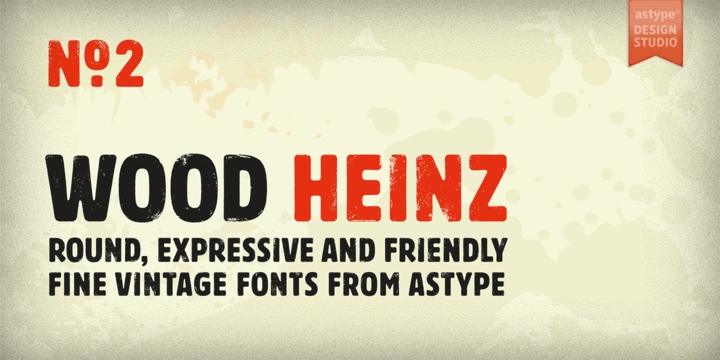
Wood Heinz No.2 Font
This distinctive wood-type inspired typeface is perfect for vintage signage, rustic branding projects, western-themed designs, craft brewery logos, antique poster recreation, artisanal packaging, heritage brand identity, and authentic Americana design applications.
What makes this font exciting is its authentic representation of classic American wood letterpress typography that dominated commercial printing in the late 19th and early 20th centuries. The bold, condensed letterforms feature the characteristic ink spread and weathered edges that create genuine vintage appeal, while the robust construction ensures excellent impact and readability in both large display and medium-sized applications.
The Wood Heinz No.2 Font family includes regular and distressed versions, along with decorative borders, vintage ornaments, and period-appropriate symbols that complete the authentic letterpress experience for comprehensive historical design projects.
The remarkable personality of Wood Heinz No.2 Font emerges through its faithful reproduction of traditional wood-type characteristics. Each letter displays the natural imperfections and organic variations created by hand-carved wooden letterforms and manual printing processes, delivering genuine historical authenticity. This exceptional attention to period detail makes it particularly valuable for museum exhibitions, historical documentaries, western film productions, and vintage merchandise requiring accurate typographic representation of America's commercial printing heritage.
Creative professionals will appreciate this font's versatility in establishing authentic connections to American craftsmanship traditions. From bourbon label designs to rodeo event posters, from antique shop signage to country music album covers, Wood Heinz No.2 Font maintains its historical integrity while adapting to modern design requirements. The font's comprehensive character set includes essential vintage elements like decorative flourishes, traditional ampersands, and period-specific numerals, ensuring complete design flexibility while preserving the authentic spirit of American wood-type printing that defined commercial communication during the nation's industrial expansion.